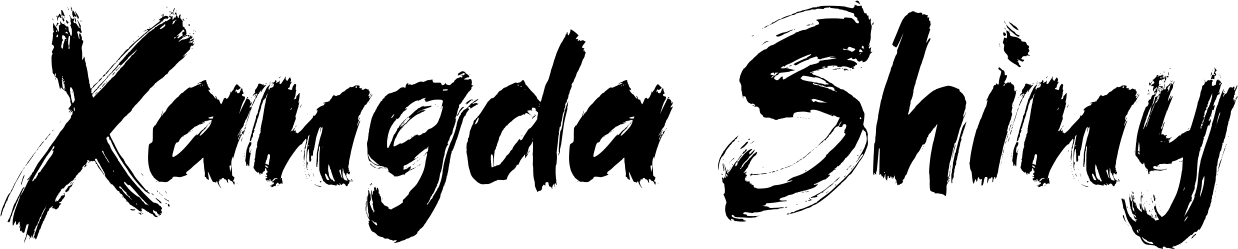
Xangda Shiny Font
Xangda Shiny font has sharp and brush font styles. This font does not have number letters, so you should use it in sports posters and flyers that are needed to bold the title.
In addition, if you are interested in designing posters for Japanese and Korean movies, this font is the best choice for you due to its proximity to Korean and Japanese language characters, and it can increase your chances of being seen in other countries.